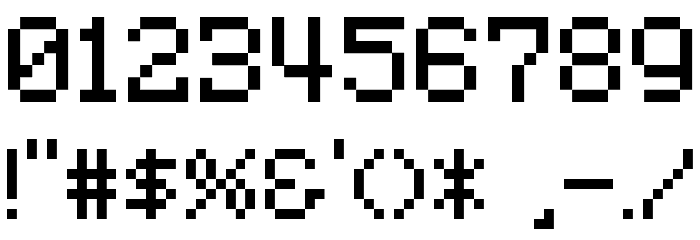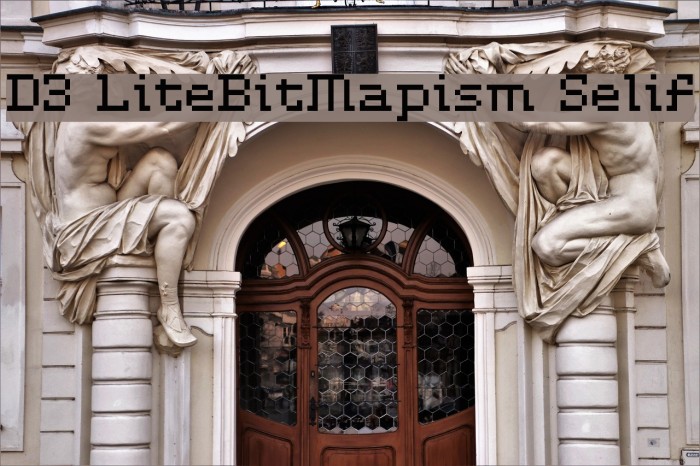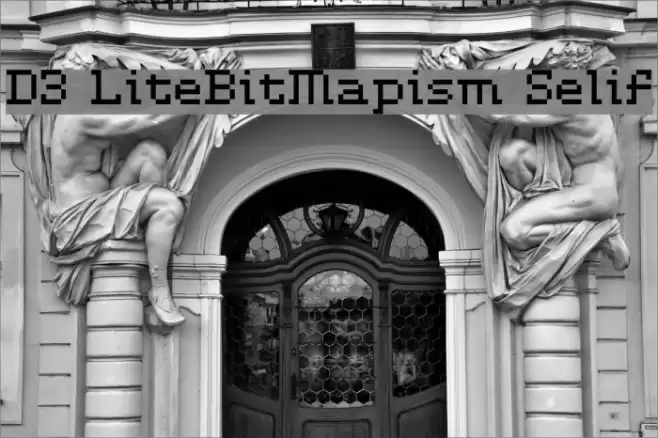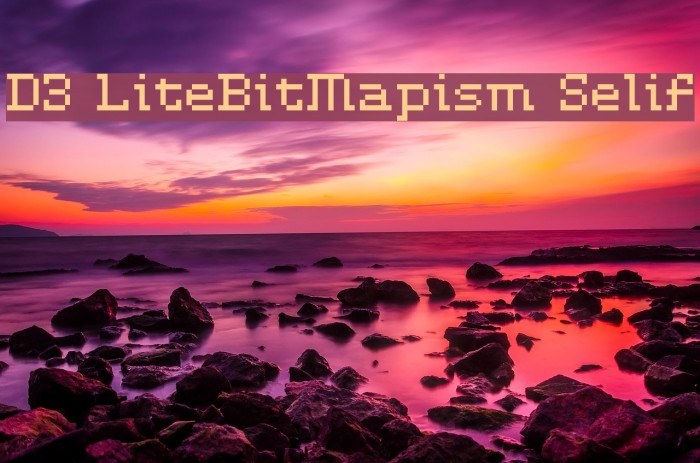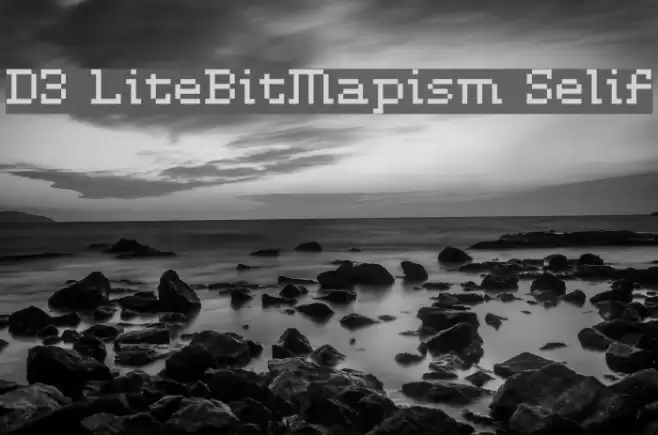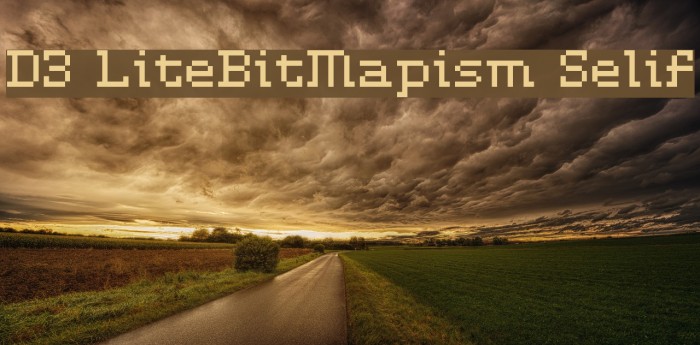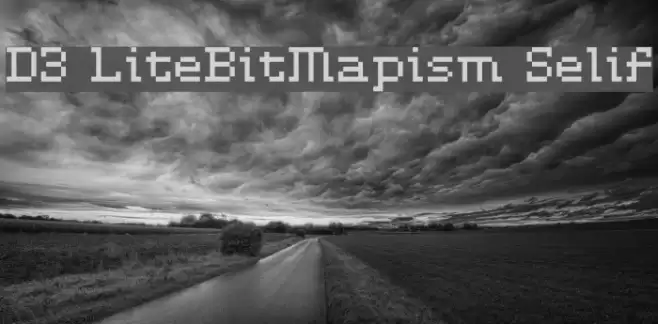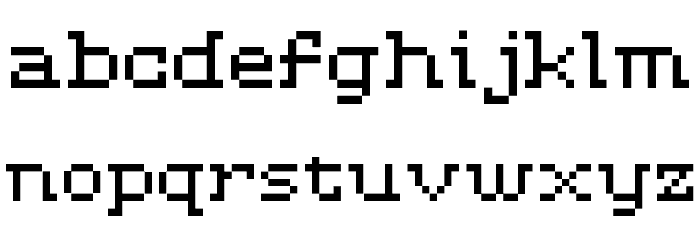
D3 LiteBitMapism Selif Font
D3 LiteBitMapism Selif Description
This font features a pixelated, bitmap style reminiscent of early computer graphics and video games. The characters are composed of square blocks, giving it a distinctly retro and digital appearance. The uppercase and lowercase letters maintain a consistent blocky structure, while the numerals and special characters follow the same design principles. The font's uniformity and simplicity make it ideal for projects that aim to evoke nostalgia or a tech-oriented theme. Its clear and legible design ensures readability even at smaller sizes, making it versatile for various digital applications.
| Overall Style | Retro, Digital |
| Use Case | Logos, Headlines, Digital displays |
| Proposed Projects | Ideal for video game design, retro-themed graphics, digital art projects, and tech-related branding. |